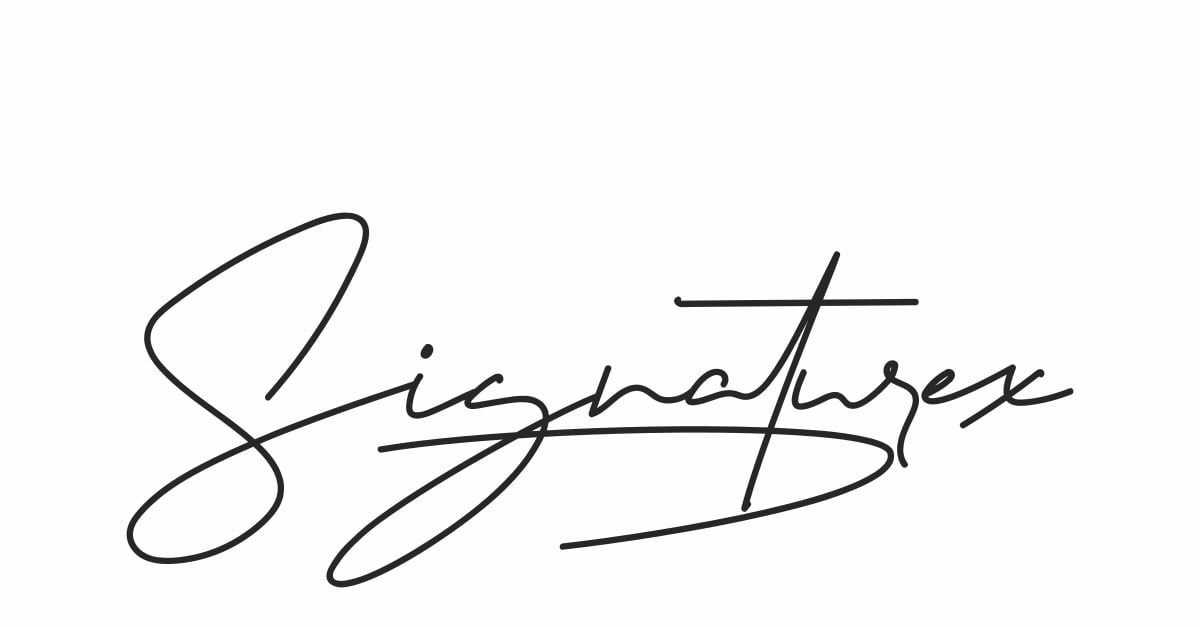
Signaturex Font
Signaturex Signature Font is a signature handwriting font. Originally made in 2020 by NihStudio Font Designer : Widi and Suci. On the package you will get :
Handcrafted here in our Studio , Indonesia. Signaturex will be great for any projects (require extended license) including : branding, logo, stationery, business card, signage, flyer, brochure etc.
The theme style of the font is elegant, luxury, glamour, gold, vintage, stylish, sophisticated and classic light brush style. The font will be match for this typeface: wedding, events, real estate, architect, law firm, florist, gardening, makeup artist, travel, hotel, musician etc